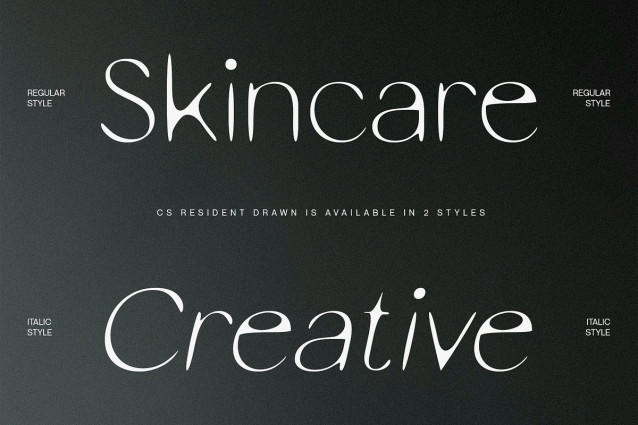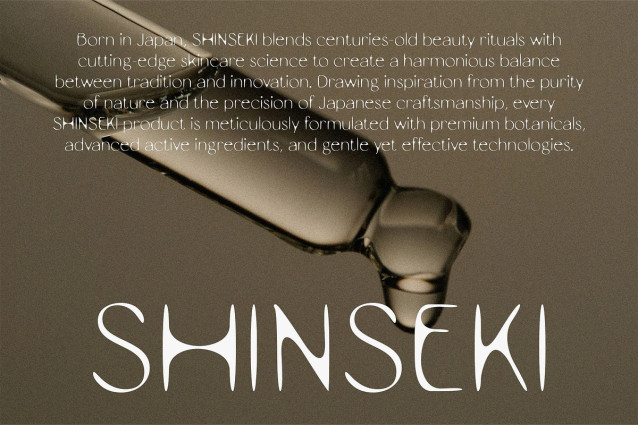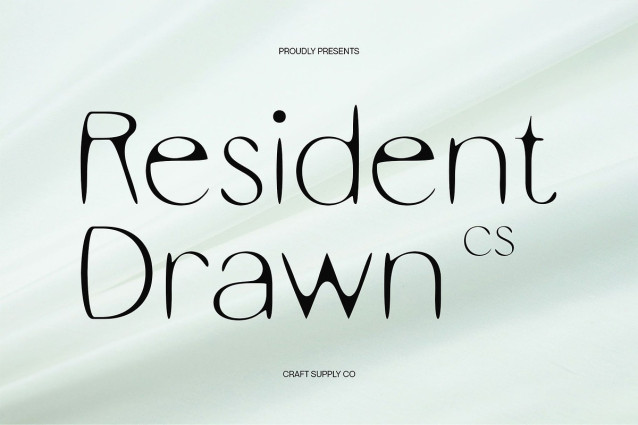
CS Resident Drawn Font
CS Resident Drawn Font – This is a modern sans serif font featuring slim, clean lines and a contemporary structure. Its elegant design conveys sophistication and clarity, making it ideal for projects that require a refined and visually appealing aesthetic.
Handmade Texture for Unique Personality Enhanced with a subtle drawn effect, each character gains a handcrafted texture, adding depth, individuality, and artistic flair. The manual detailing transforms clean modern shapes into expressive, captivating typography.
Sleek and Contemporary Style This sleek and minimalist font balances sleek modernity with subtle artisanal touches. Its clean proportions and refined letterforms ensure readability, while the handmade nuances provide visual interest and character.
Versatile for Creative and Professional Projects Ideal for branding, editorial layouts, posters, or other creative applications, this expressive and artistic font adapts seamlessly across design contexts. Its combination of modern elegance and handcrafted detail ensures a sophisticated, aesthetically pleasing presence.
Elevate Your Designs with Distinctive Refinement With harmonious lines, subtle manual texture, and contemporary styling, this eye-catching and distinctive font delivers a typeface that enhances any project. It’s a versatile choice for designers seeking a modern, elegant, and characterful typographic identity.